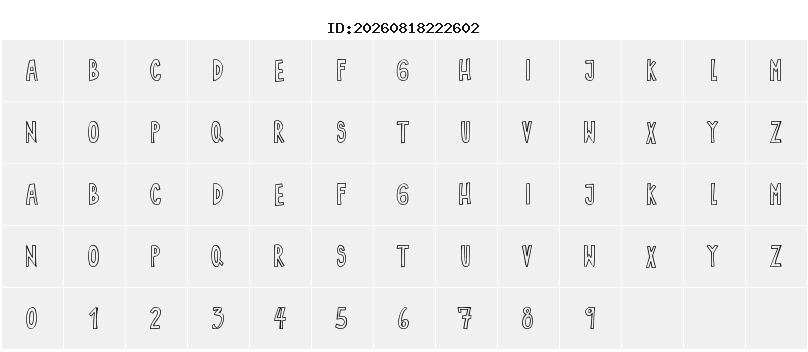
• Font Name: Sin Gracia
• Full Font Name: Sin Gracia
• Version: Version 1.00 April 14, 2014, initial release
• Designer: Omar Mogollón
• Manufacturer: Omar Mogollón
About Sin Gracia.ttf
Sin Gracia.ttf is a modern, elegant sans-serif font designed for ultimate readability and visual harmony. Perfect for branding, headlines, web design, and print materials.